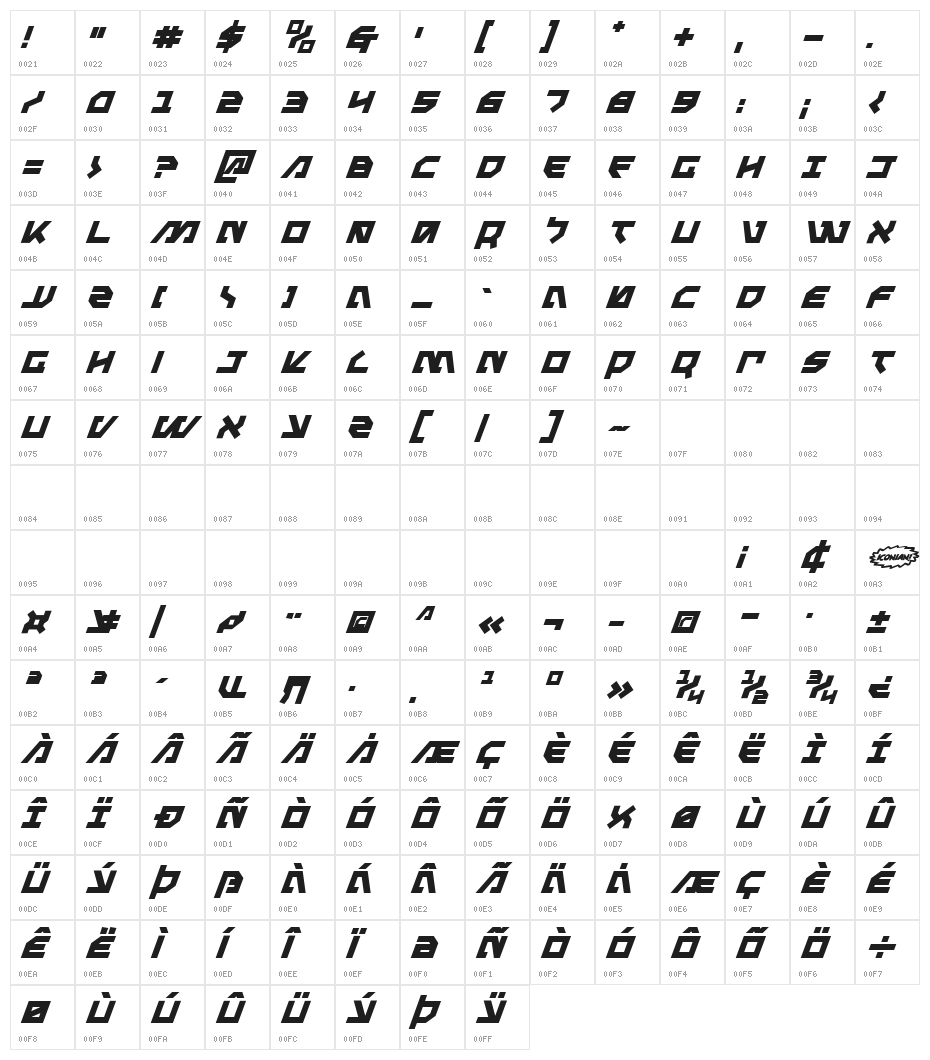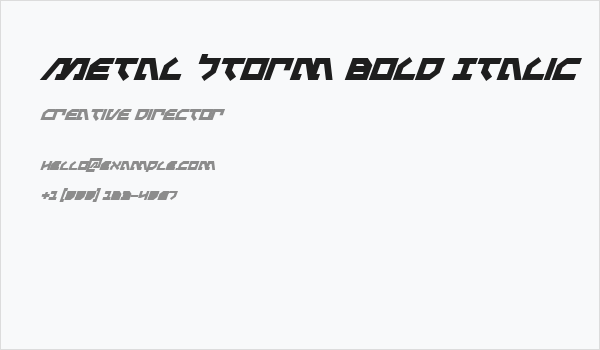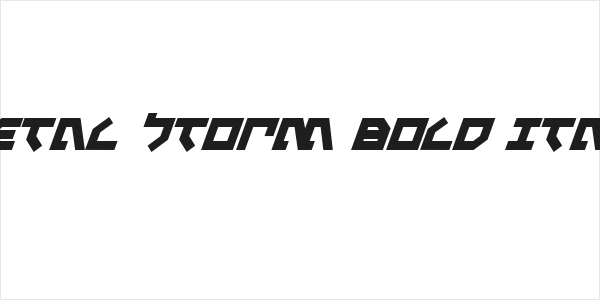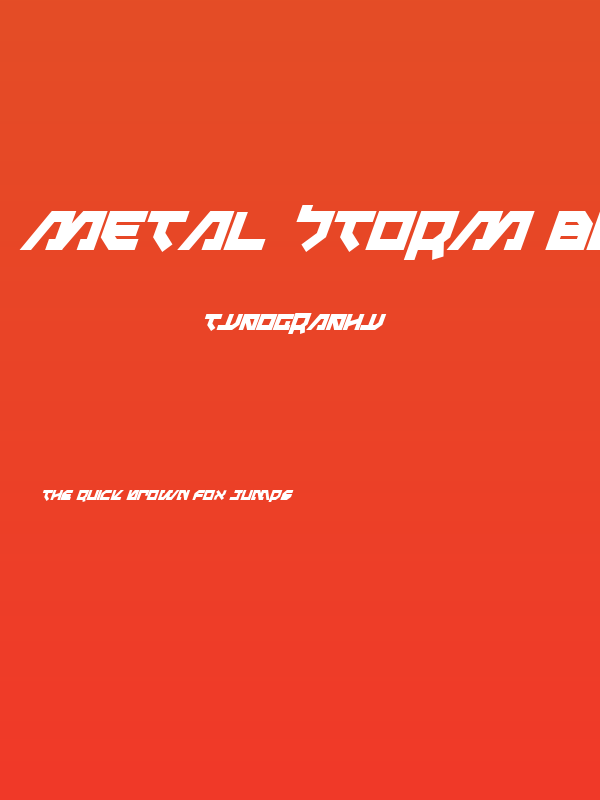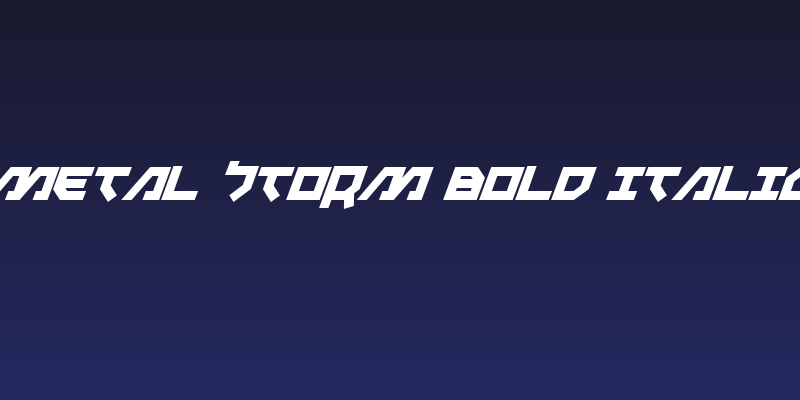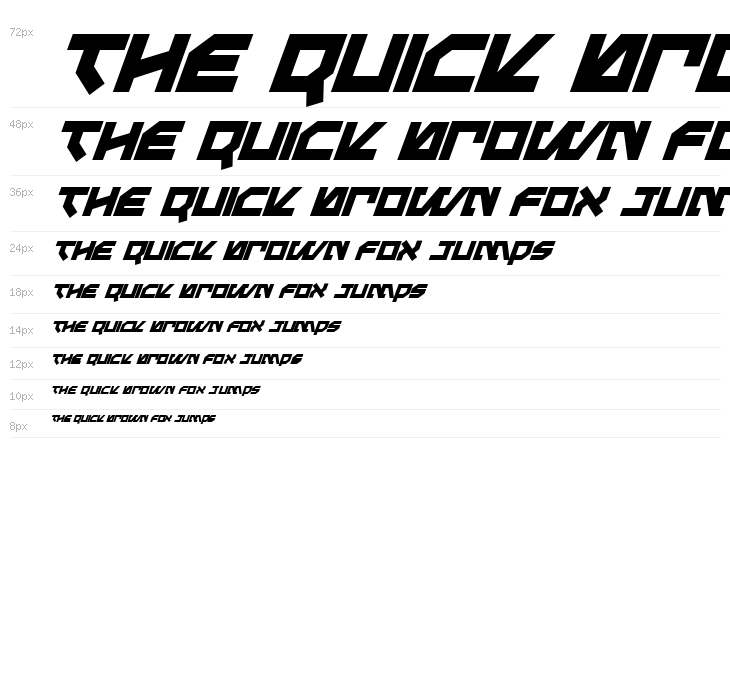
Metal Storm Bold Italic Font
Metal Storm Bold Italic Description
This font features a bold and italicized style with a distinct futuristic and angular design. The characters are sharply cut with a geometric influence, giving them a dynamic and aggressive appearance. The uppercase and lowercase letters maintain a consistent slant, enhancing the italicized effect. Numbers and special characters follow the same design principles, ensuring uniformity across all glyphs. The font's bold weight and unique style make it stand out, suitable for projects that require a strong visual impact.
| Proposed Projects | Ideal for sci-fi themed posters, video game titles, branding for tech companies, and any project needing a modern, edgy look. |